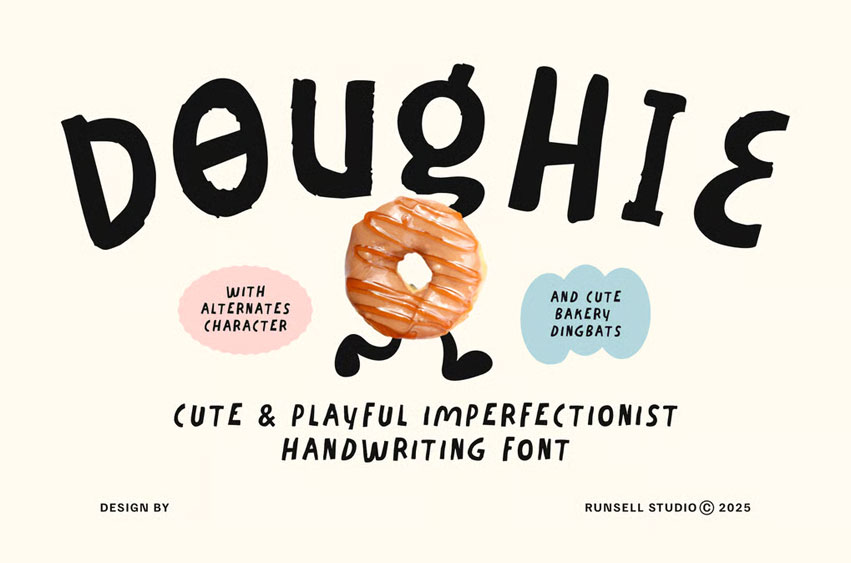
Doughie Font is a cute and playful handwriting font inspired by the warmth of bakeries, coffee shops, and cozy kitchen vibes. Its quirky shapes and imperfect strokes capture the feeling of homemade goodness — perfect for logo designs, restaurant menus, café boards, and brand identity projects that crave a personal touch. Each letter feels hand-crafted, like dough rising with character and charm.
Whether you’re designing for candy, burger, or pizza packaging, or adding a sweet accent to ice and chocolate branding, Doughie brings a cheerful energy that feels freshly baked. It’s also packed with alternates and cute bakery dingbats, making it ideal for cooking illustrations, playful menus, and creative food branding. With Doughie, every design tastes a little more delightful.